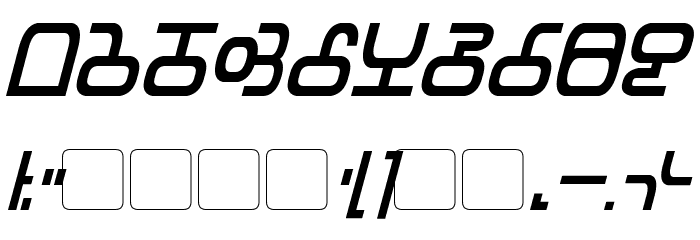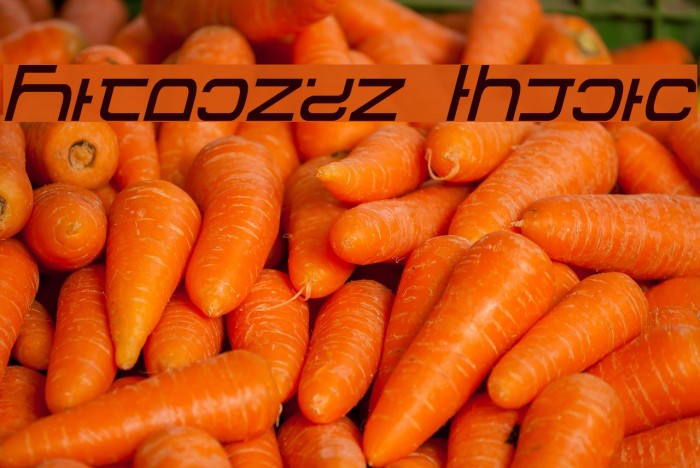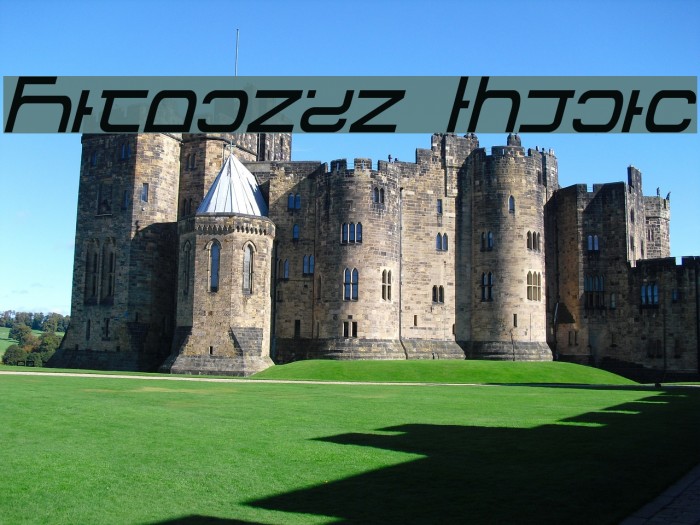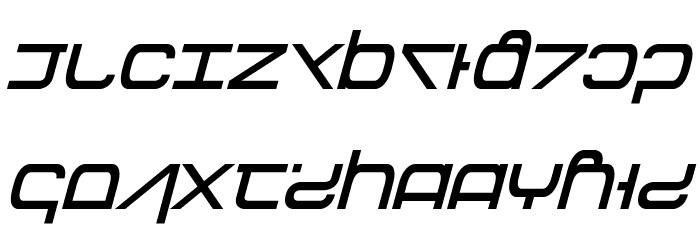
Tirolese Italic Font
This font exhibits a modern, futuristic style with a distinct italic slant, giving it a dynamic and forward-moving appearance. The characters are sleek and streamlined, featuring sharp angles and clean lines that create a sense of speed and efficiency. The uppercase letters are bold and prominent, while the lowercase letters maintain a consistent style, ensuring readability. The numerals and special characters are designed to match the overall aesthetic, with a unique flair that adds to the font's distinctive look. The spacing between characters is tight, enhancing the compact and cohesive feel of the text. This font is ideal for projects that require a contemporary and innovative touch.
A modern, italic font with a futuristic and dynamic style.
• Proposed Projects: Ideal for technology branding, sci-fi themed designs, and modern advertising.
• Category: Modern
• Bold: No
• Italic: Yes
• Weight: Regular
• Width: Normal
• Character Spacing: Tight
• Contrast: Medium
• Overall Style: Futuristic
• Use Case: Headlines, Logos, Branding